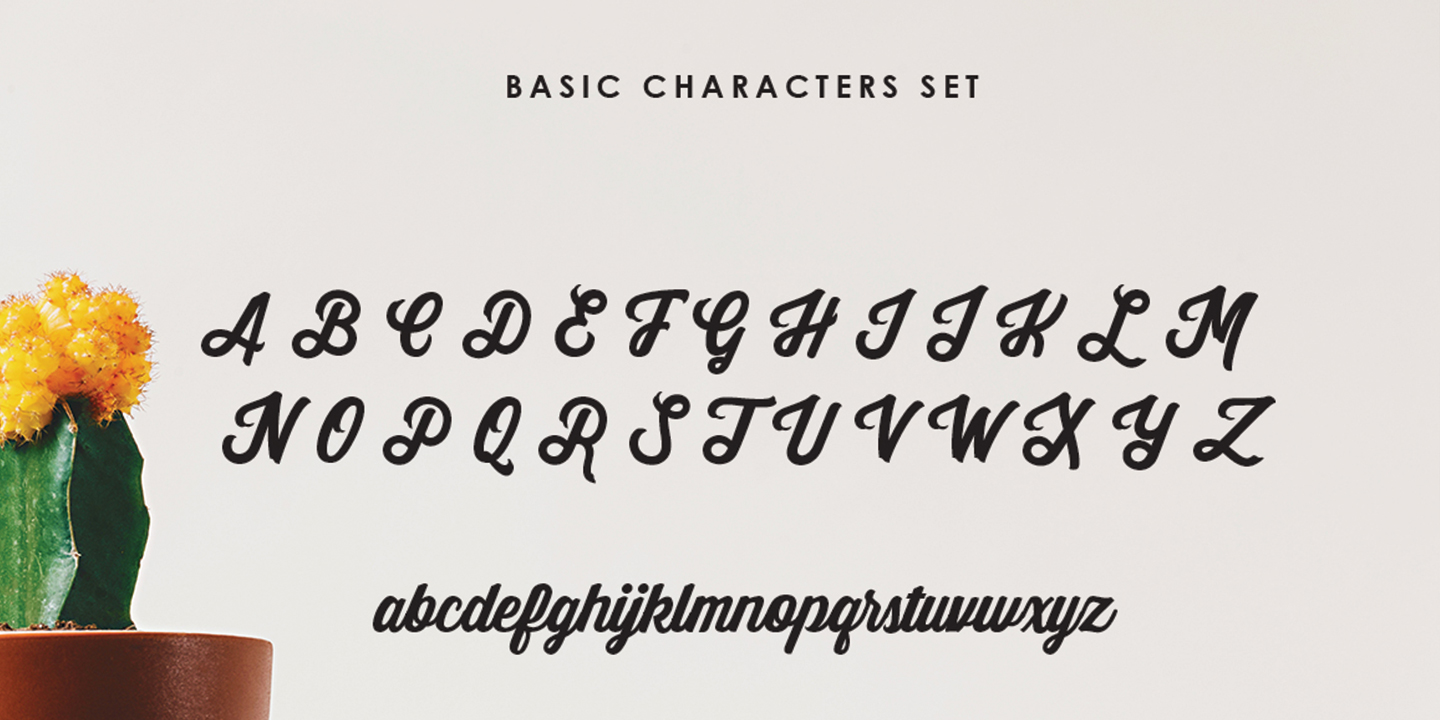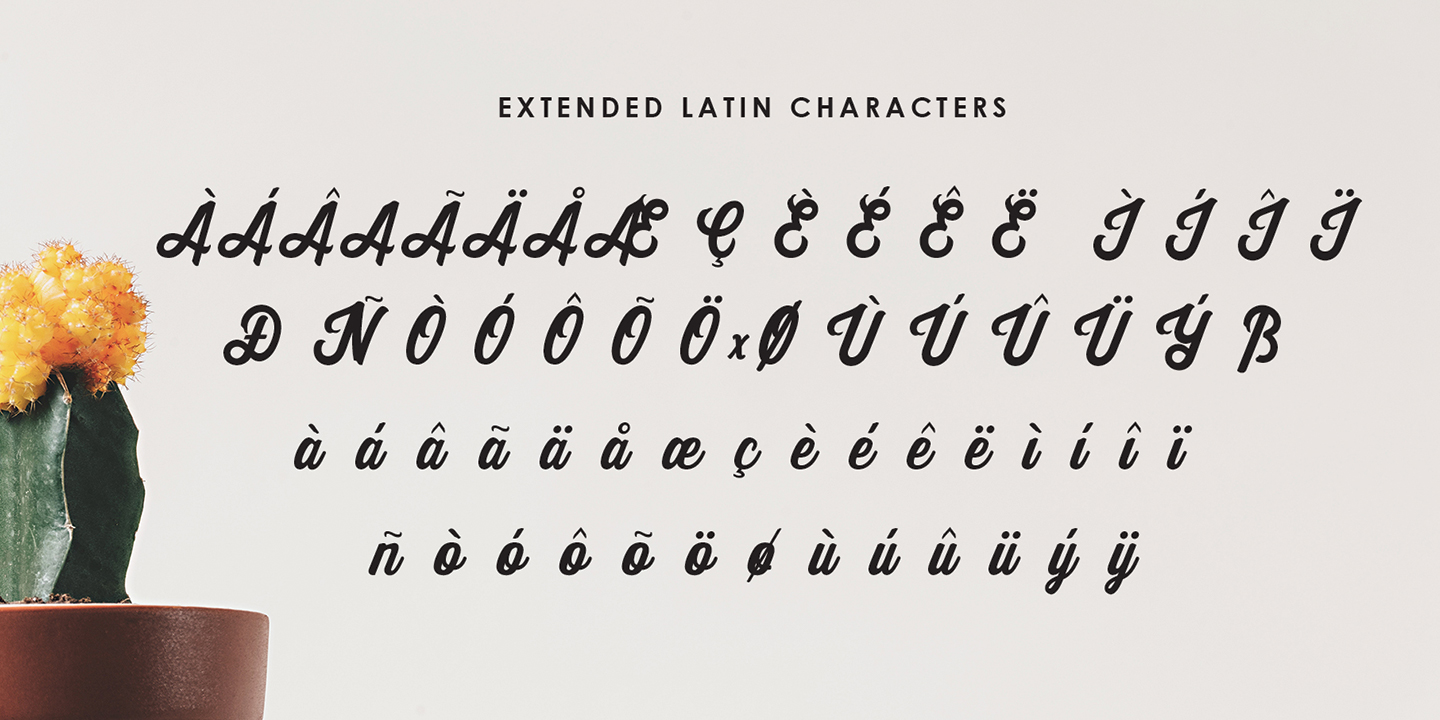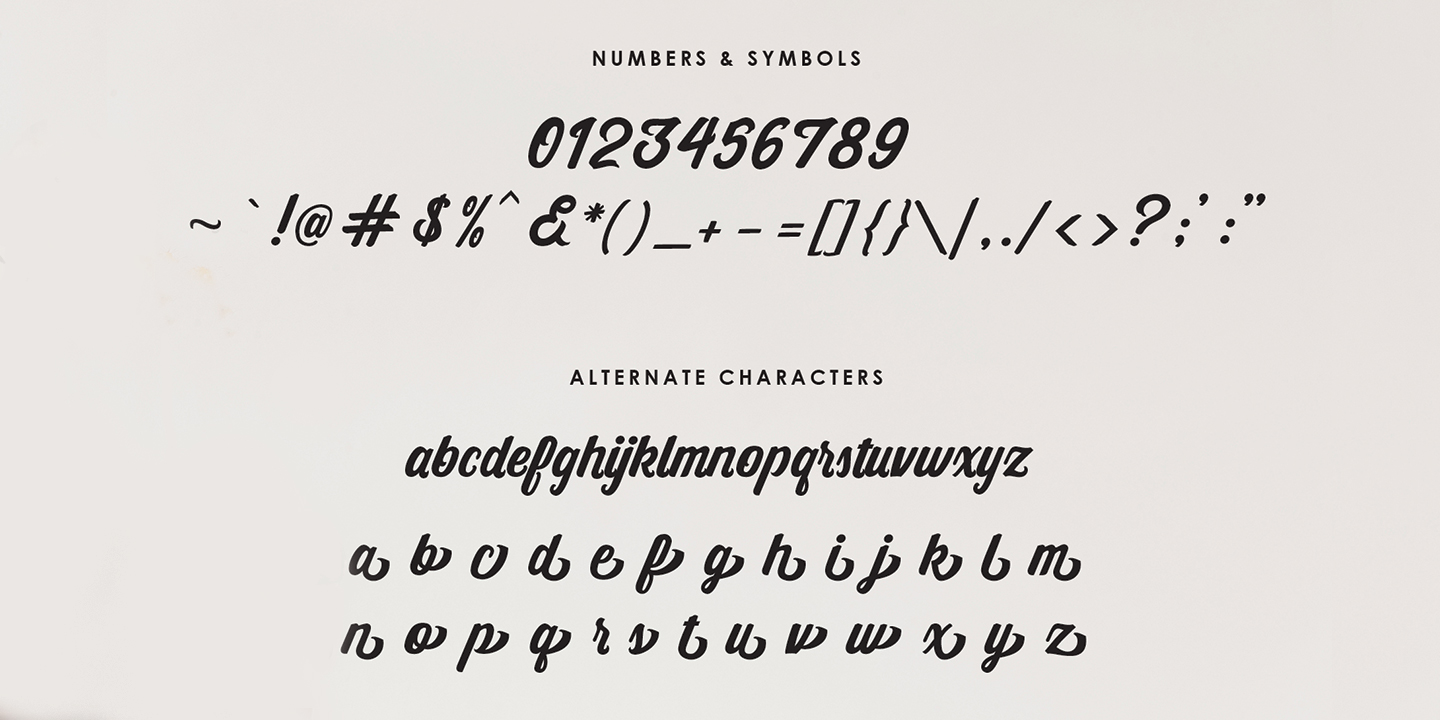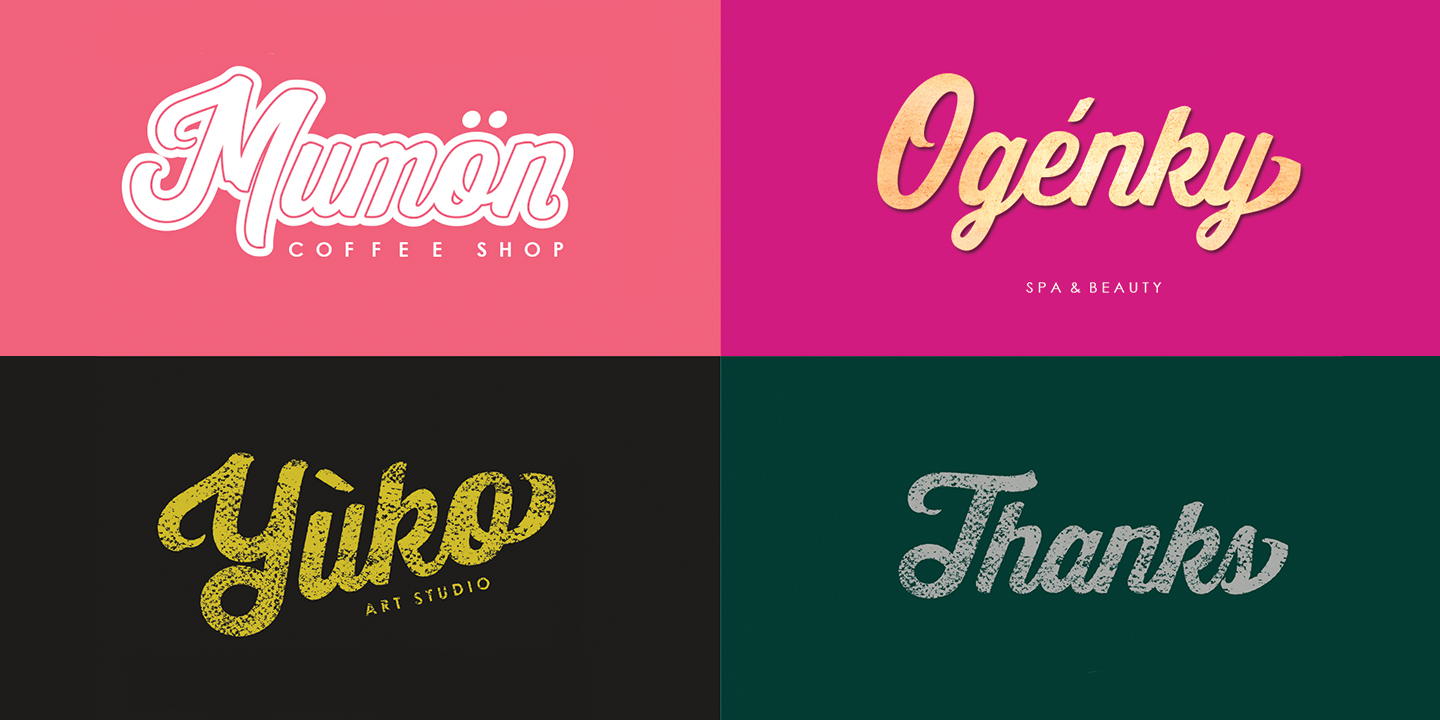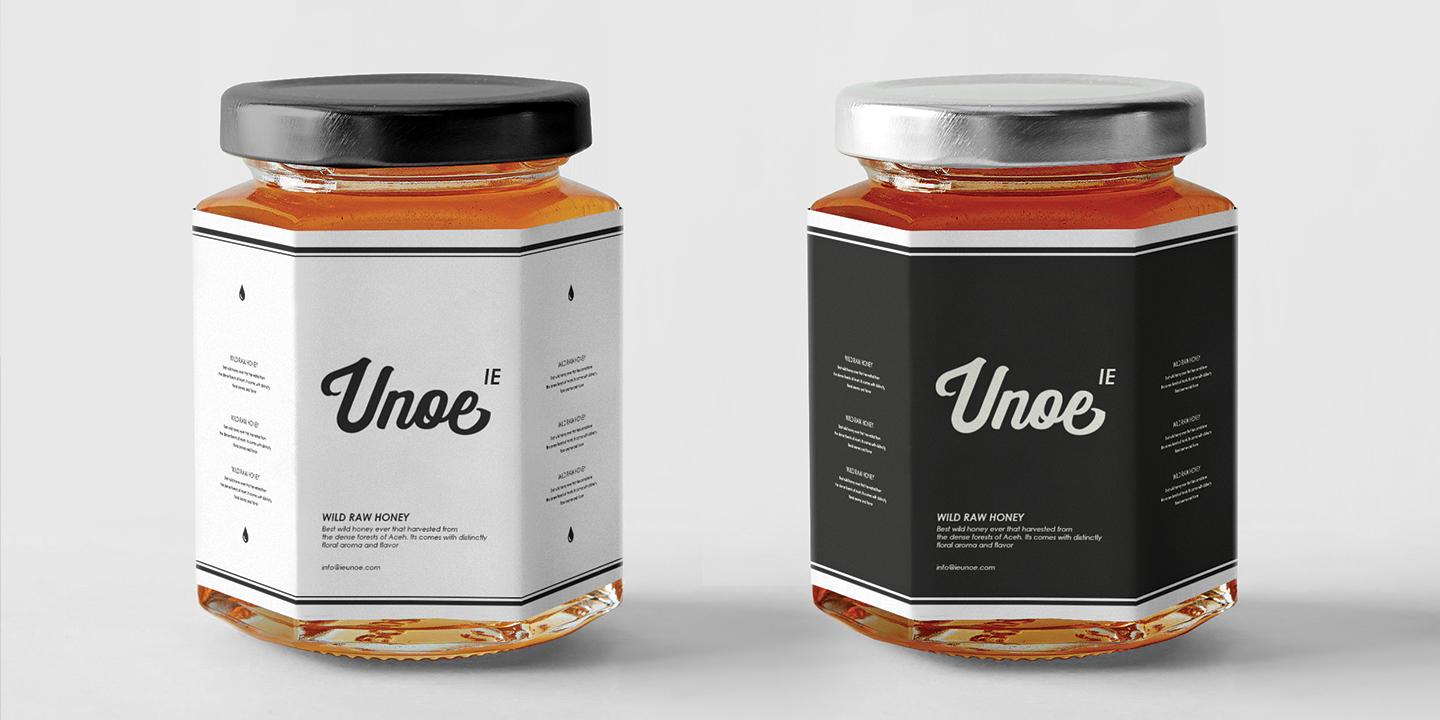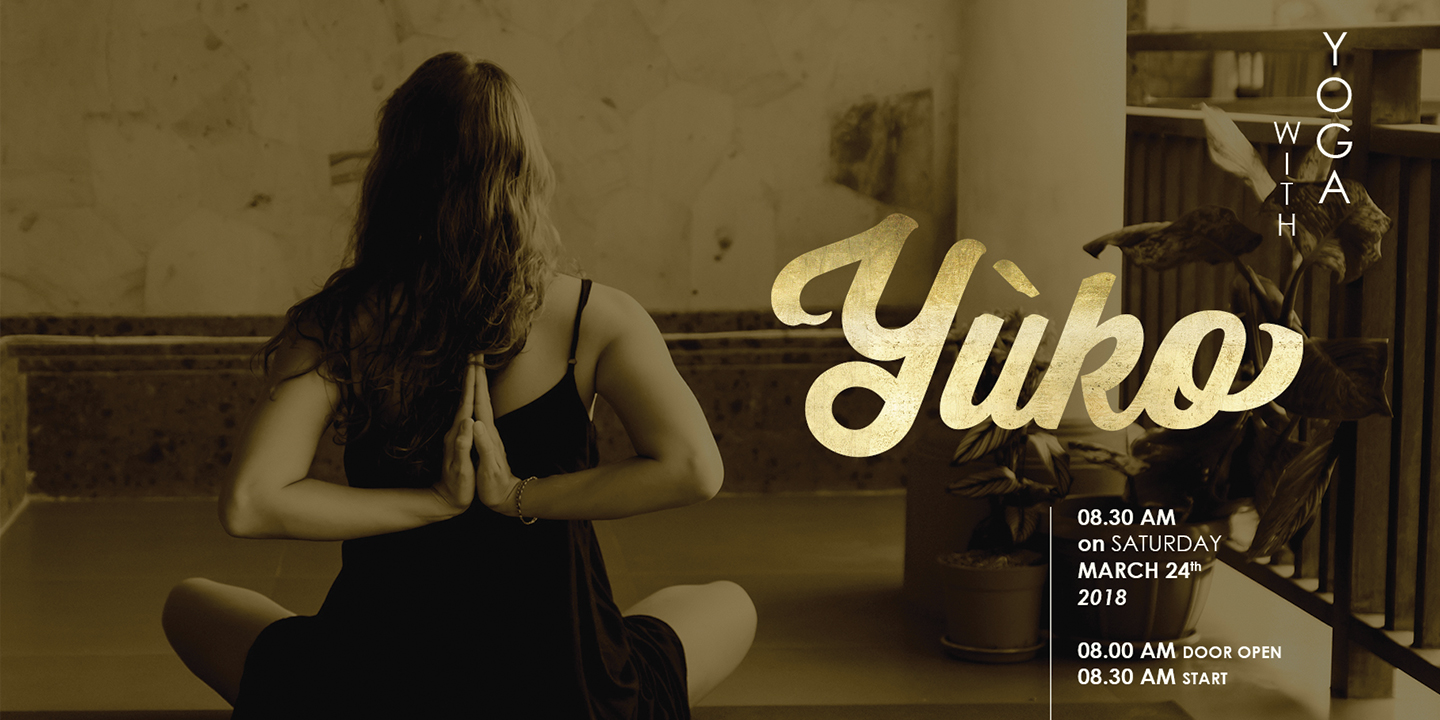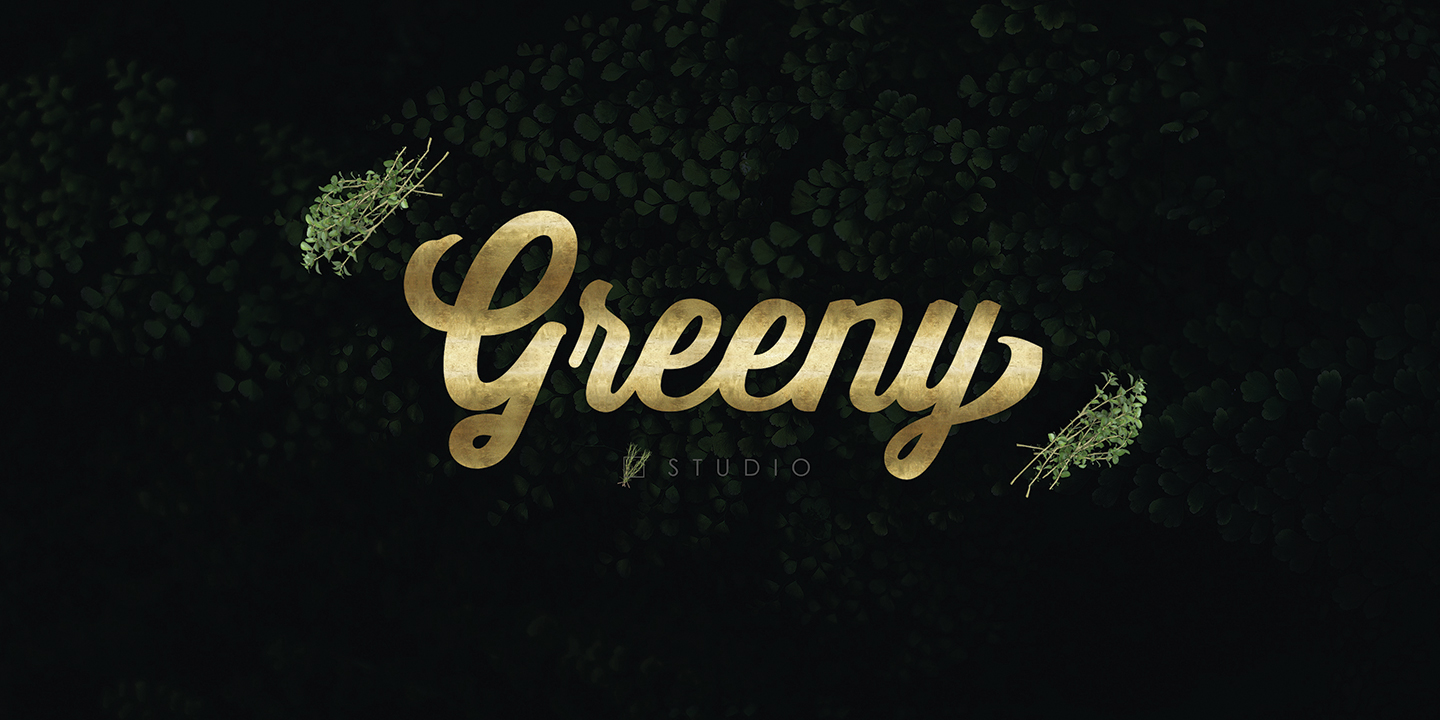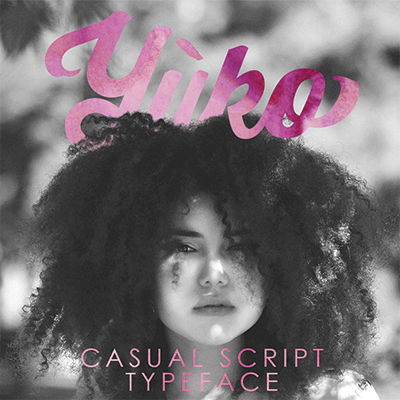
Yuko (1 font)
Yuko is a beautifully designed casual script typeface. You can easily tap into your creativity with this font as Yuko works great in logos, displays, product branding, stationary, packaging, brochures, labels, posters, etc.